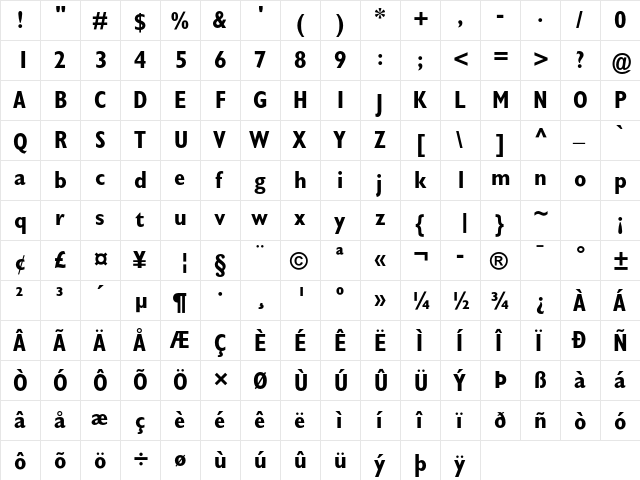
Gill Sans MT Pro Bold Condensed Font Preview
Design Context for Gill Sans MT Pro Typeface
Gill Sans MT Pro offers clean, dependable letterforms without strong stylistic allegiance, making it a practical choice for designers who need flexibility. The heavy weight commands attention and anchors typographic hierarchies. The condensed width makes it efficient for tight spaces without sacrificing legibility.
Pro Tip: Use Gill Sans MT Pro in both headline and body roles to test its range before committing to a single application.